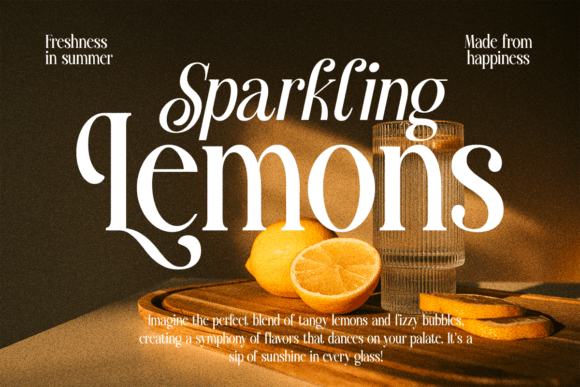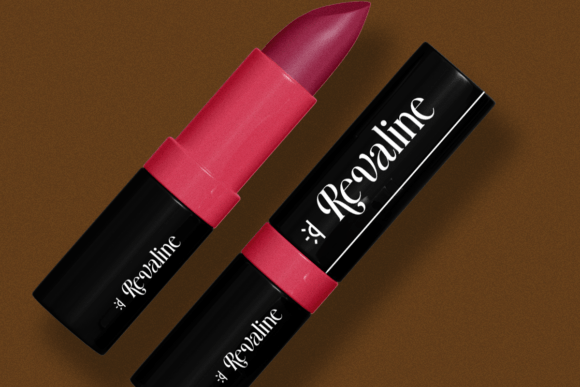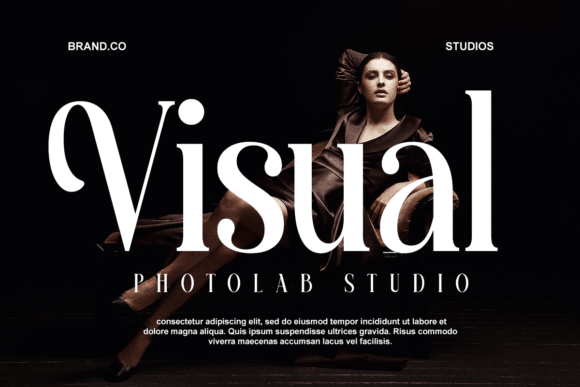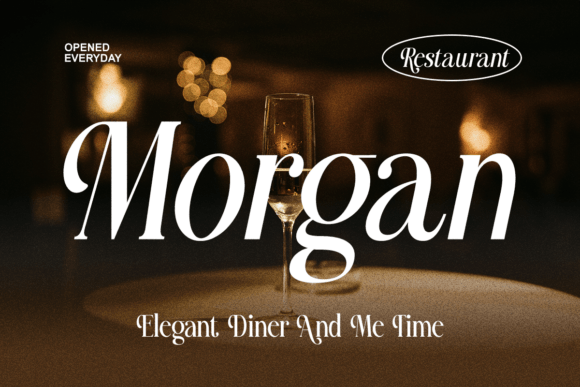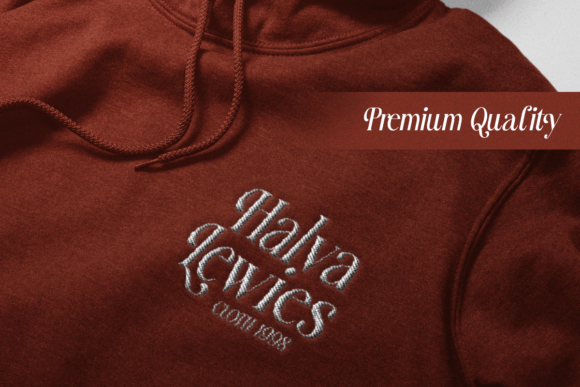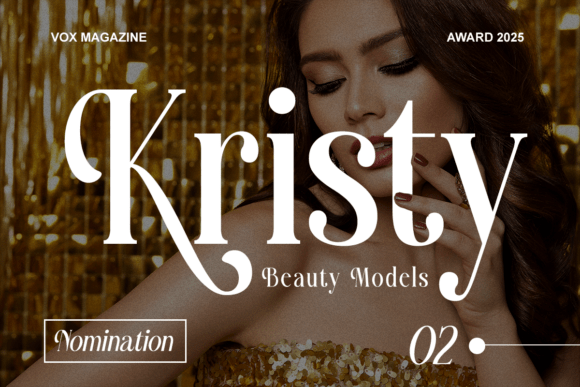
Introduction to Ravsten Regular Font
As a designer, you know the thrill of staring at a blank canvas, waiting for inspiration to strike. It’s the moment when the perfect font can elevate your entire project, transporting it from ordinary to extraordinary. And for those seeking that elusive touch of elegance, the Ravsten Regular Font is a game-changer.
With its refined letterforms, high-contrast strokes, and subtle decorative details, Ravsten Regular Font exudes timeless sophistication with a modern twist. Whether you’re working on a high-end branding project, a fashion editorial, or a wedding invitation, this font is sure to bring a sense of luxury and artistry to your creative work. Plus, its versatility allows it to shine in both bold headlines and refined body text, making it a valuable resource for designers who demand style, class, and a polished aesthetic.
Key Features of Ravsten Regular Font
- High-quality font design for creative projects, ideal for graphic designers, artists, and writers.
- Transparent background, allowing for seamless integration with any design or image, making it a valuable design resource.
- Available in a single weight, the Ravsten Regular Font is perfect for body text, headings, and titles in creative projects.
- Designed with a modern aesthetic, the Ravsten Regular Font is suitable for a wide range of creative projects, from print to digital media.
Honest Review: Ravsten Regular Font
I recently stumbled upon the Ravsten Regular Font, and I must say it’s been a great addition to my design resources. The free download was a pleasant surprise, and the high quality of the font is evident from the first glance.
The transparent background makes it easy to use in creative projects, and the clean design ensures that the text stands out without overpowering the rest of the content. I’ve used it in a few projects already, and the results are impressive.
Here are some of the things that work well with the Ravsten Regular Font:
- ✨ Clean and modern design
- ✨ Easy to read, even in small sizes
- ✨ Versatile and suitable for a wide range of creative projects
- ⚠️ Limited character set, which may not be suitable for projects that require a wide range of special characters
- ⚠️ Not as extensive a font family as some other popular fonts
Overall, I’m quite impressed with the Ravsten Regular Font. While it may have some limitations, its high quality and versatility make it a valuable design resource that I’ll be using again and again.
Tips for Getting the Most Out of Ravsten Regular Font
To get the most out of the Ravsten Regular Font, use it in combination with other design elements to create a unique and visually appealing design. Experiment with different font sizes, colors, and styles to find the perfect look for your creative project.
The Ravsten Regular Font is perfect for use in a variety of creative projects, including logos, graphics, presentations, and documents. Its high-quality design and transparent background make it an ideal choice for designers and artists looking for a unique design resource.